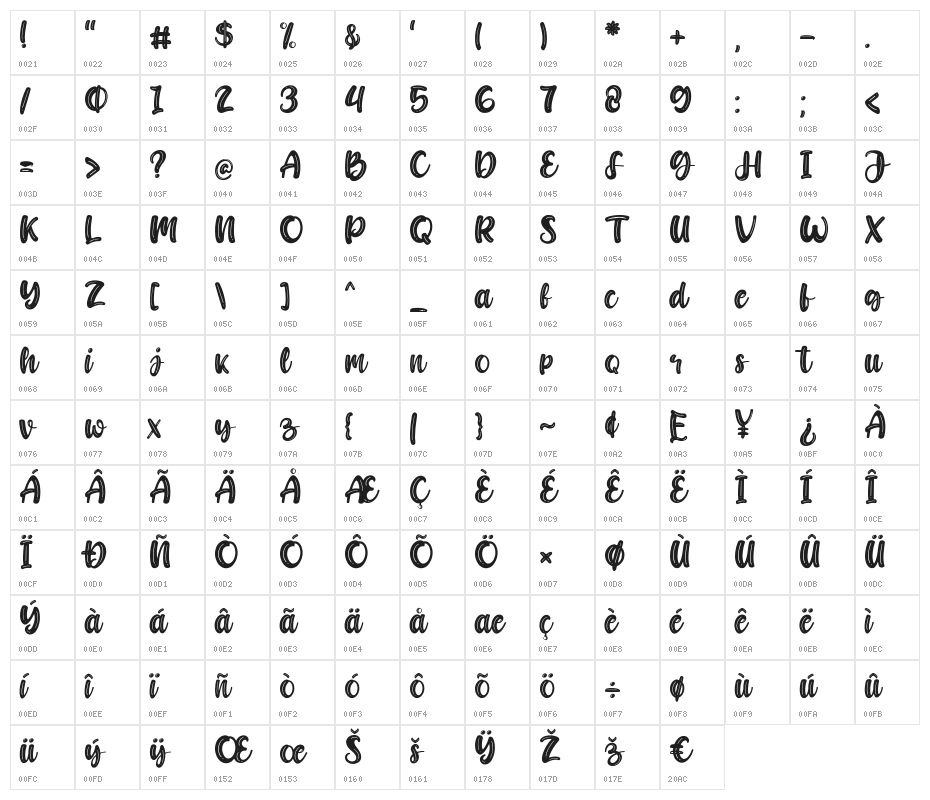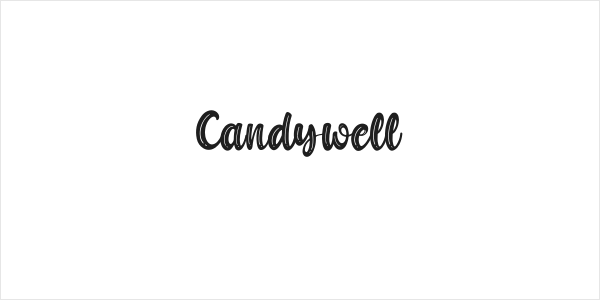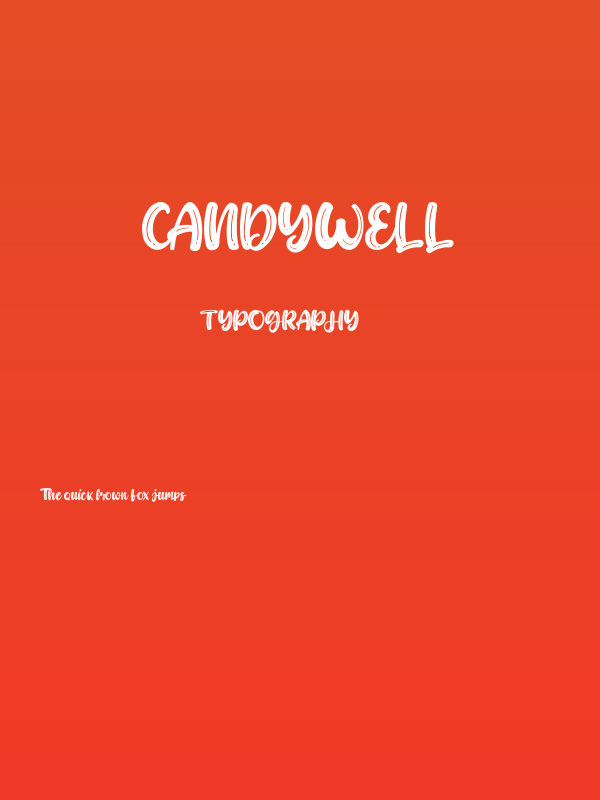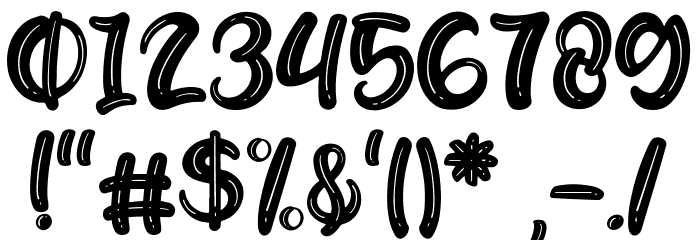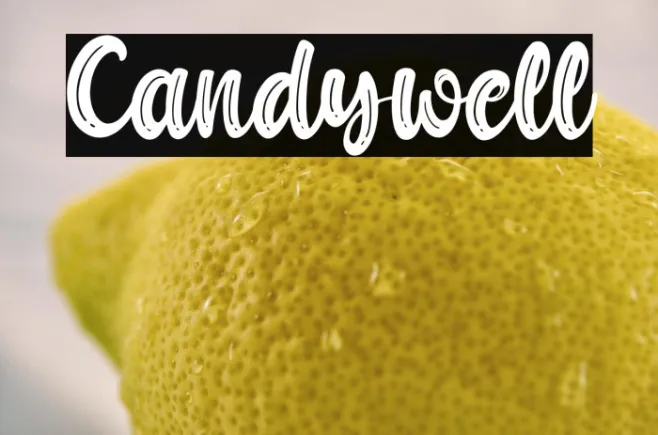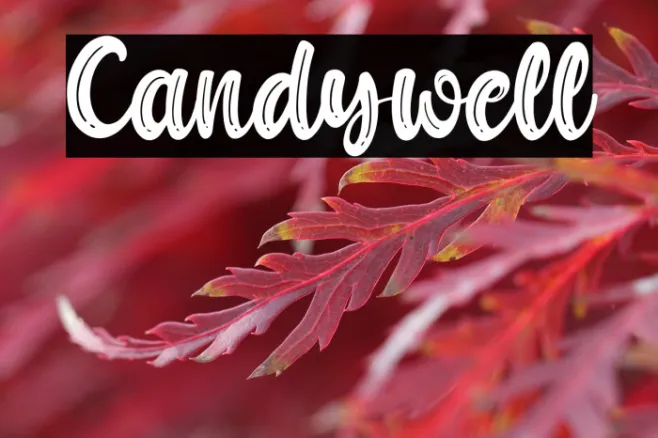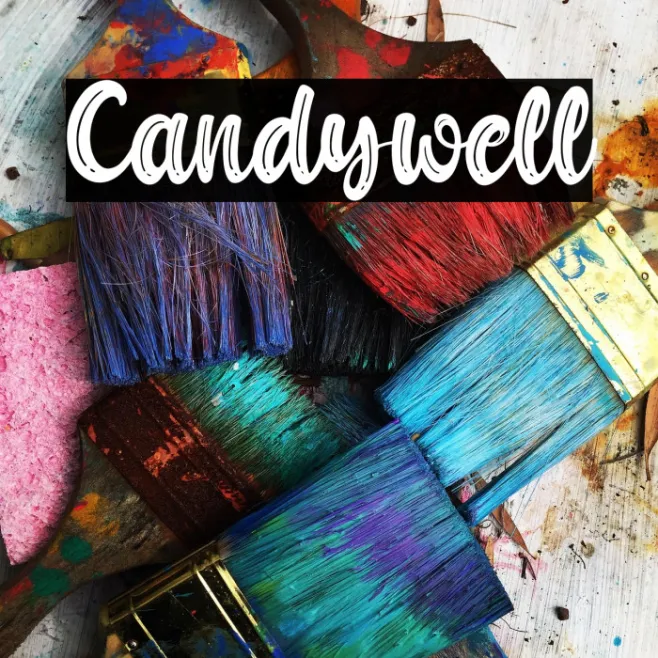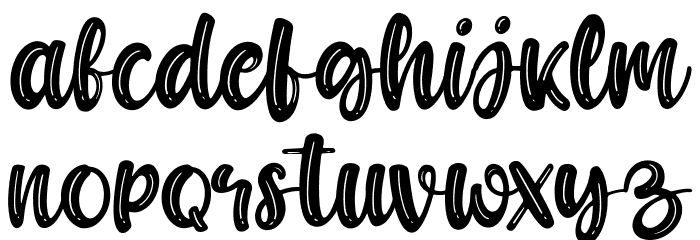
Candywell Font
Candywell Description
This font exudes a playful and energetic vibe with its bold, rounded strokes and fluid, cursive style. Each character is crafted with a sense of movement, giving the text a lively and dynamic appearance. The uppercase letters are slightly more structured, while the lowercase letters maintain a whimsical flow, enhancing the font's overall charm. The numbers and special characters are consistent with this playful aesthetic, making them ideal for creative and informal designs. The font's thick strokes and rounded edges contribute to its friendly and approachable feel, making it suitable for a variety of fun and engaging projects.
| Overall Style | Playful, Energetic |
| Use Case | Headlines, Logos, Informal Invitations |
| Proposed Projects | Ideal for children's book covers, playful branding, greeting cards, and social media graphics. |